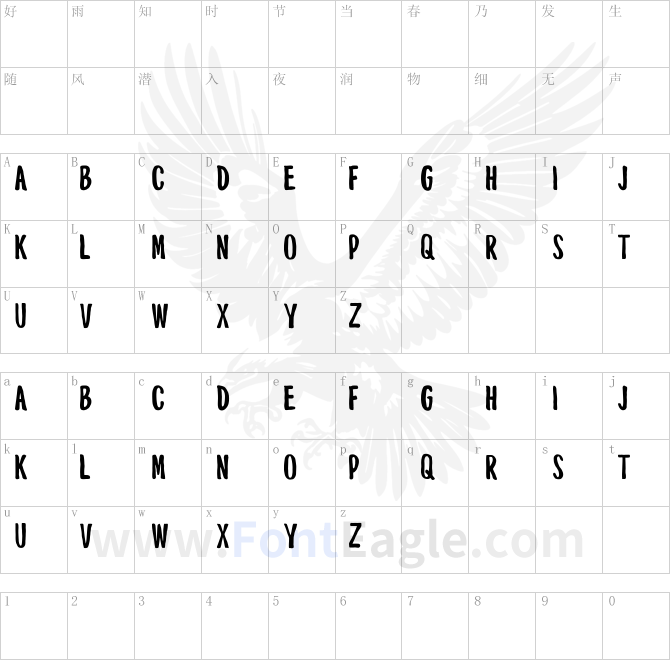
Mouthpiece-Regular is a great font, widely used in graphic design, single-page menu design, poster design and other fields, and is deeply loved by designers.Mouthpiece-Regular download.